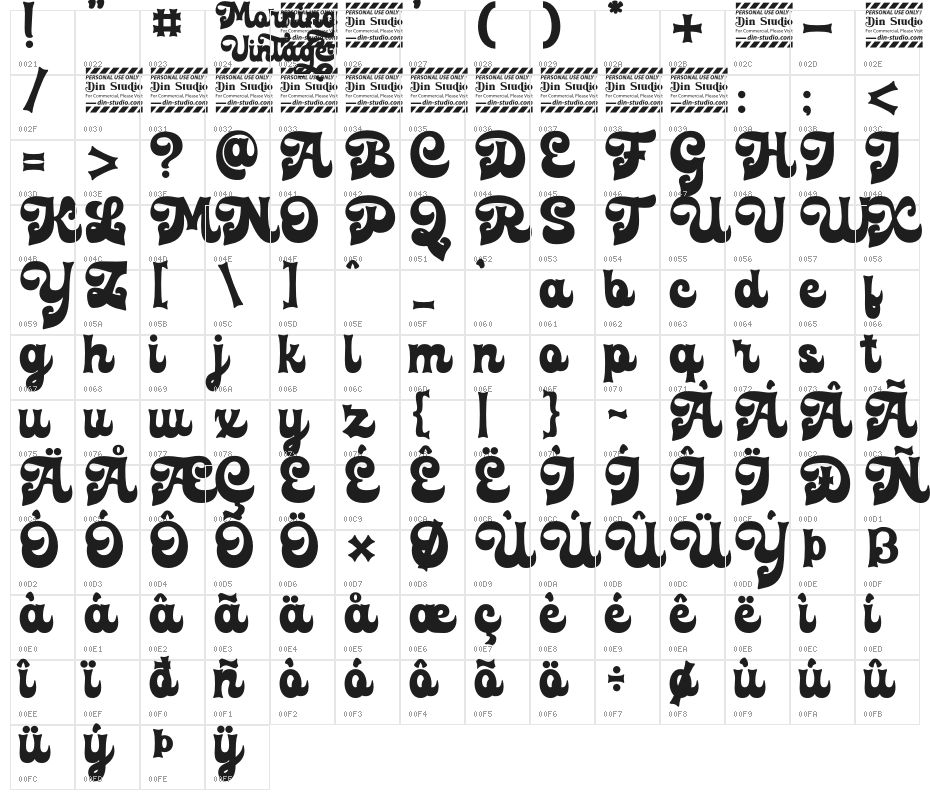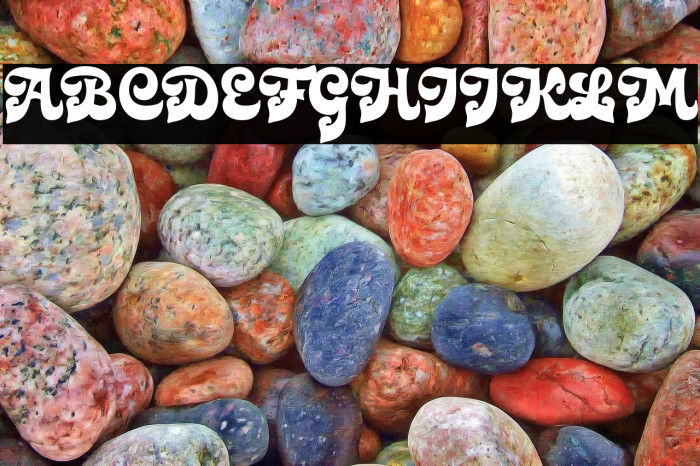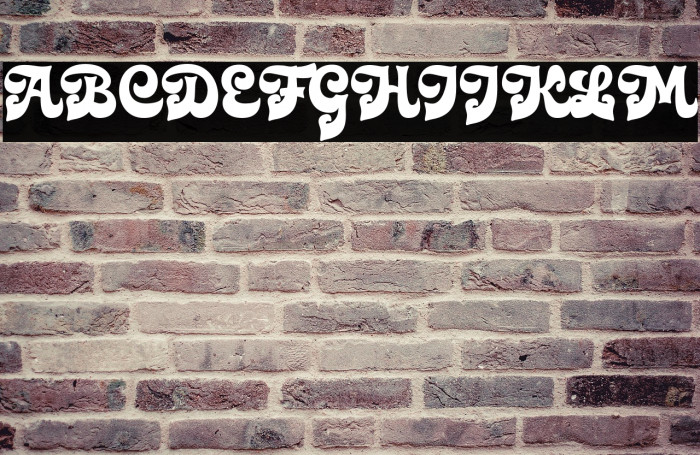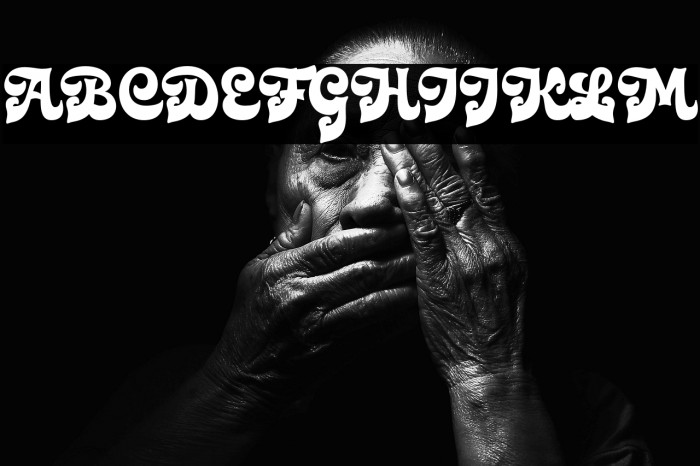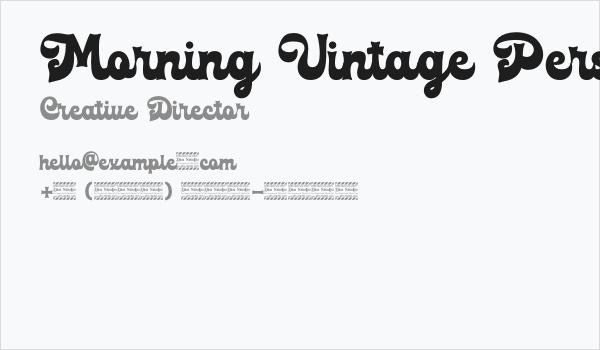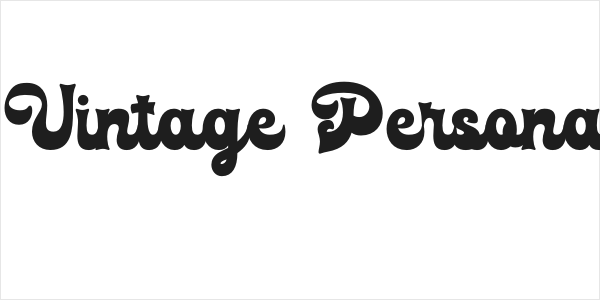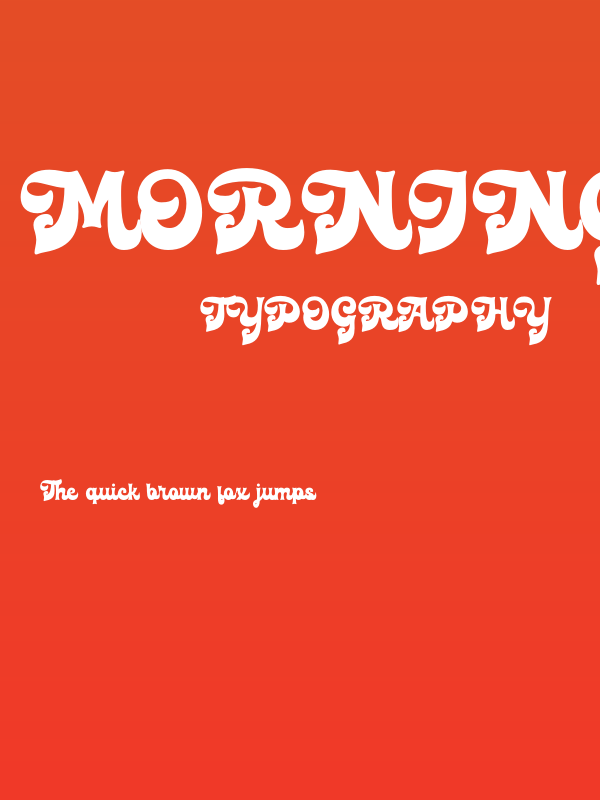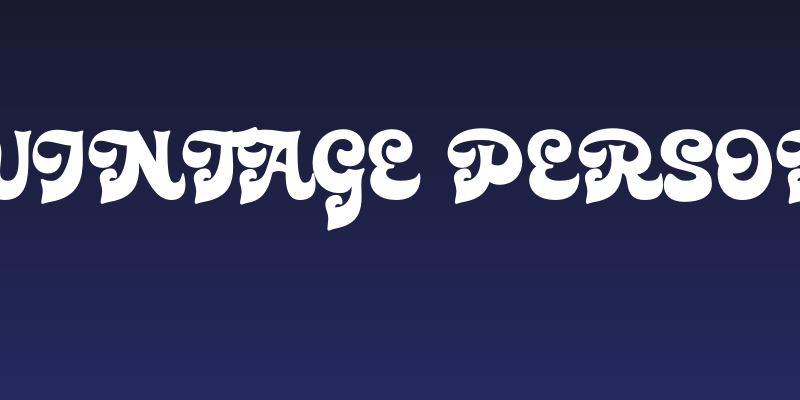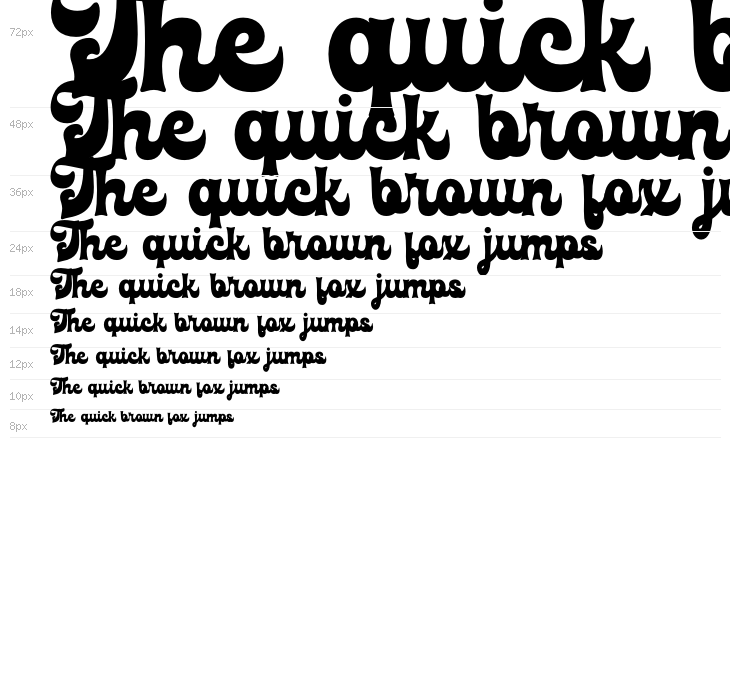
This font exhibits a bold and decorative style, characterized by its intricate and vintage-inspired design. The uppercase letters feature ornate details with a slight flourish, giving them a distinct, eye-catching appearance. The lowercase letters maintain a consistent boldness, with rounded edges that add a touch of softness to the overall look. The numbers and special characters are designed to complement the alphabet, maintaining the same decorative flair. This font's unique style makes it suitable for projects that require a vintage or retro aesthetic, while its boldness ensures readability and impact.
| Proposed Projects | Ideal for vintage-themed posters, retro branding, event invitations, and artistic projects requiring a bold statement. |